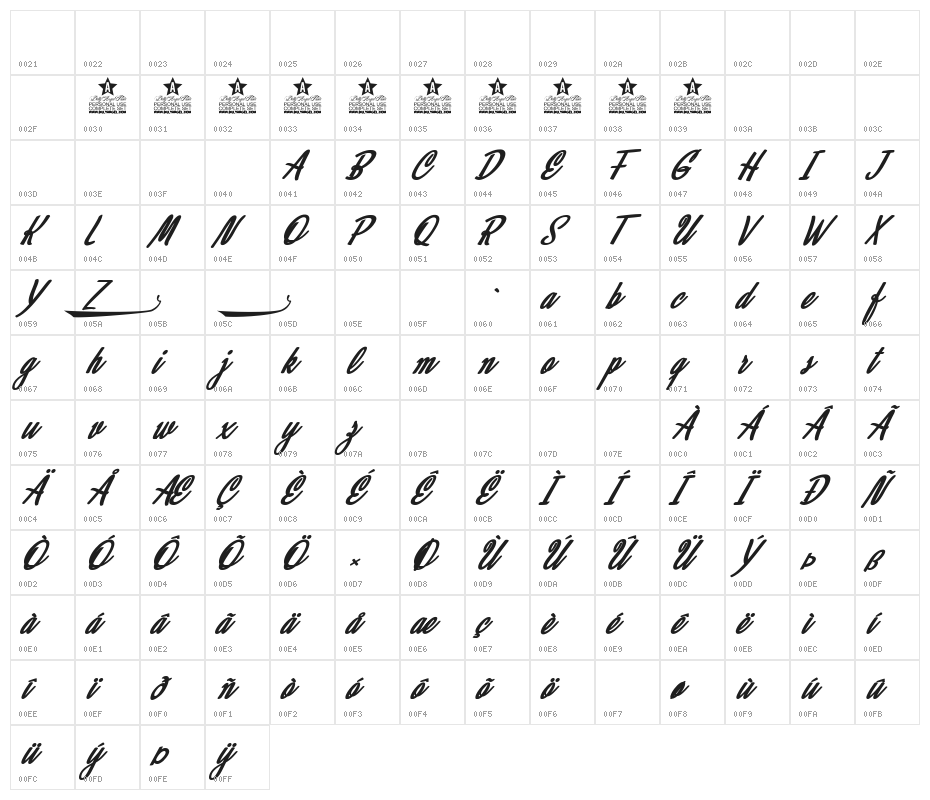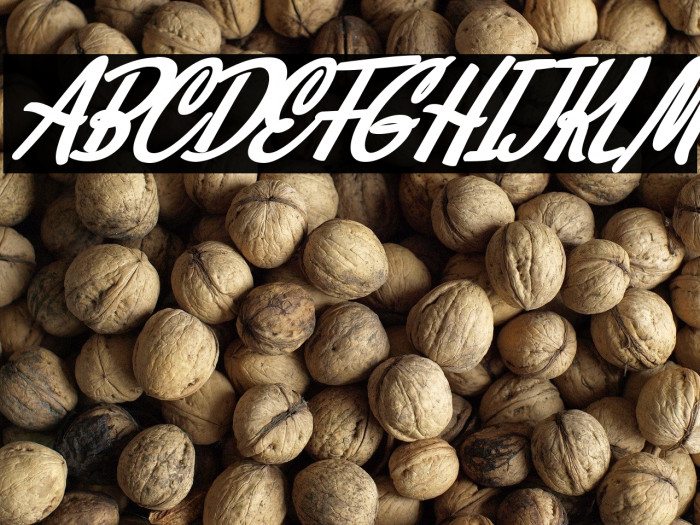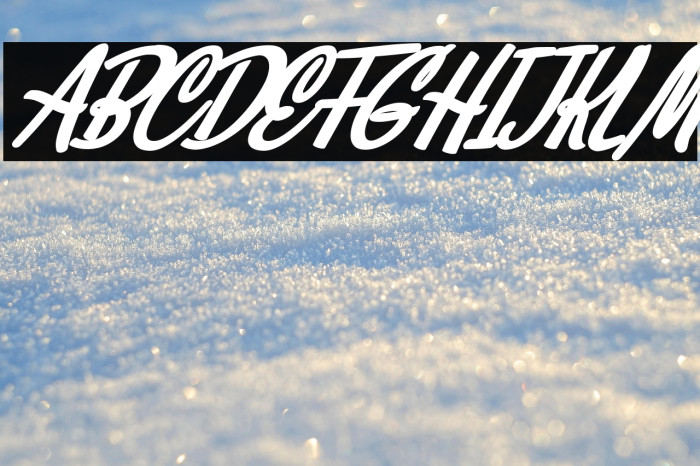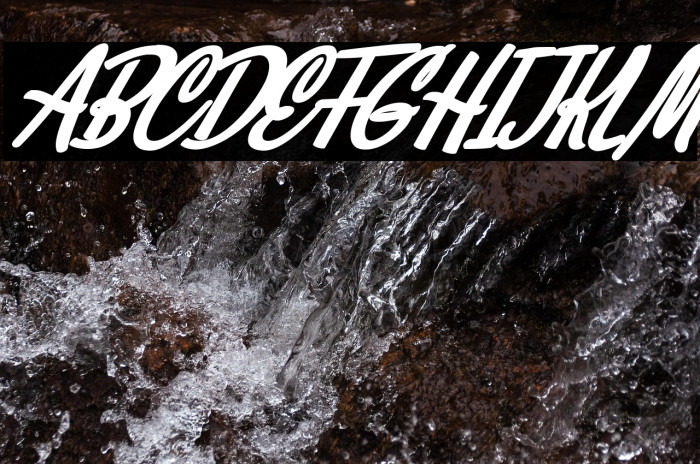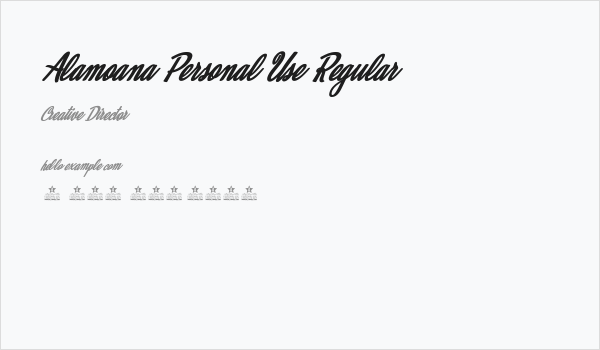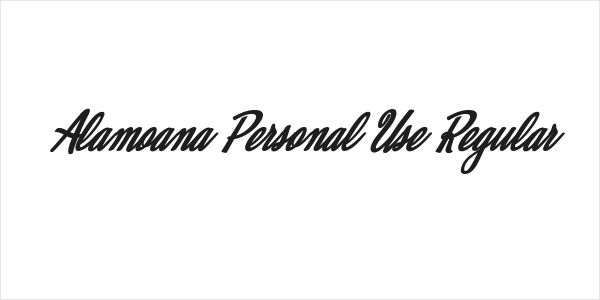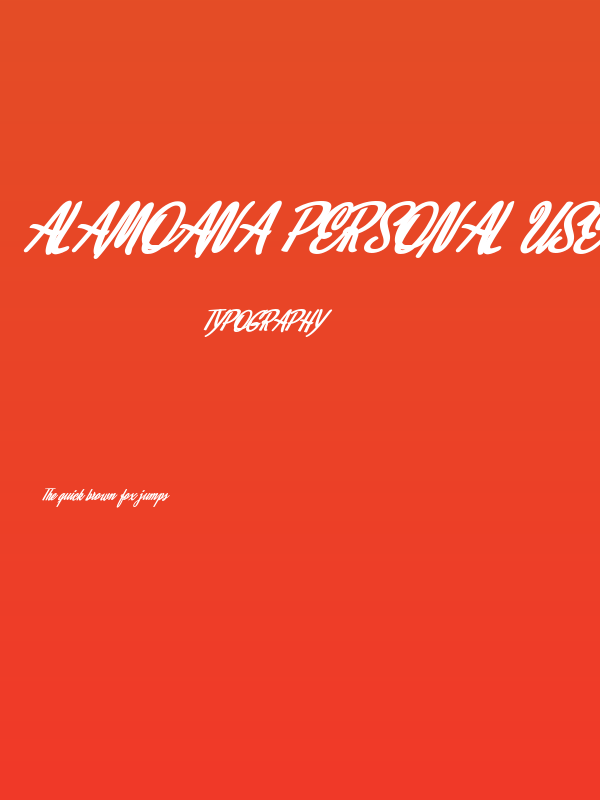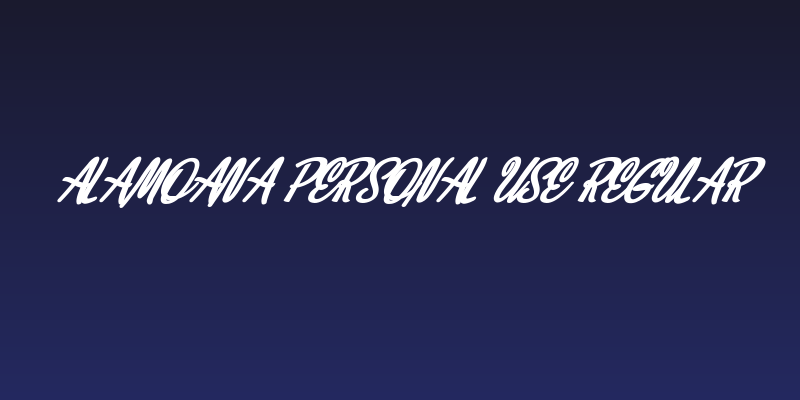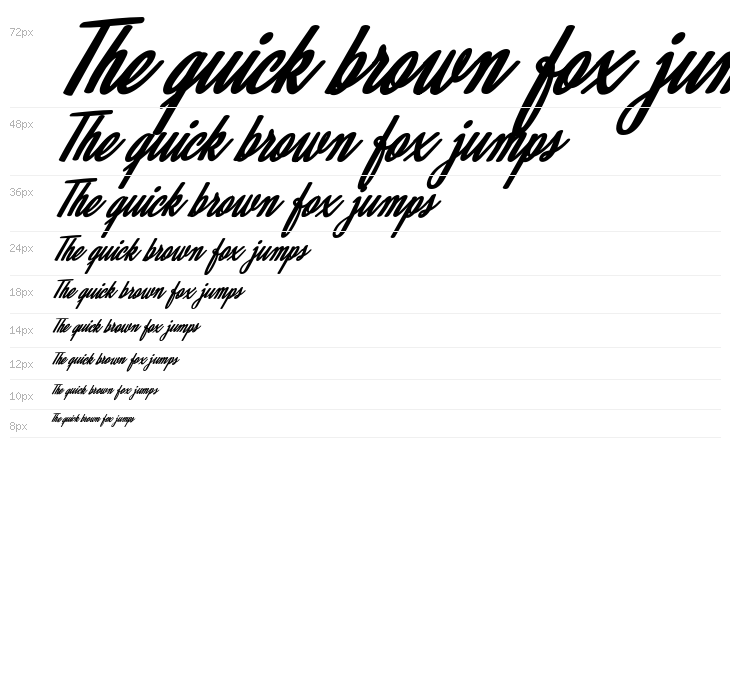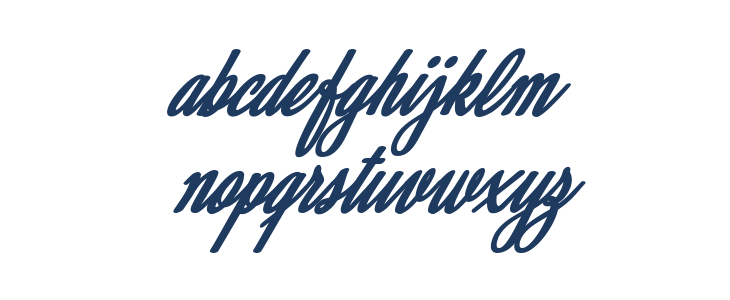
Alamoana Personal Use Regular Font
Alamoana Personal Use Regular Description
This font features a bold, flowing script style with a strong emphasis on cursive elements. The letters are connected, creating a seamless and elegant appearance. The uppercase characters are particularly striking, with exaggerated loops and flourishes that add a sense of movement and dynamism. The lowercase letters maintain the same fluidity, ensuring consistency across the typeface. The overall design is reminiscent of traditional calligraphy, yet it incorporates modern touches that make it suitable for contemporary use. The font's bold weight and high contrast between thick and thin strokes enhance its readability, making it ideal for eye-catching designs.